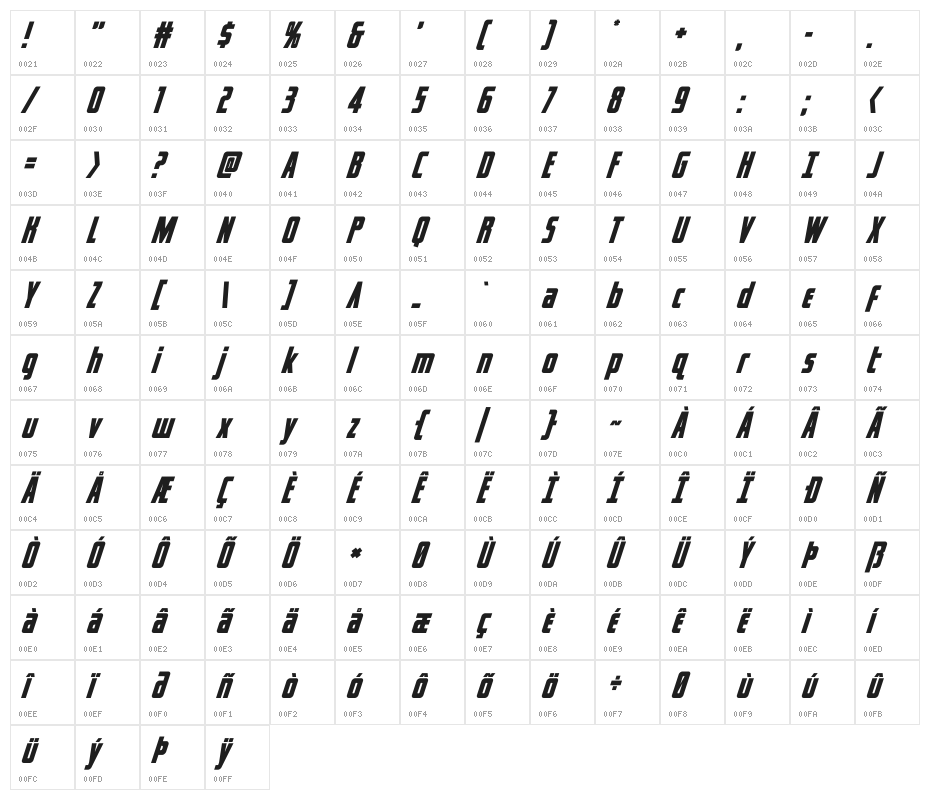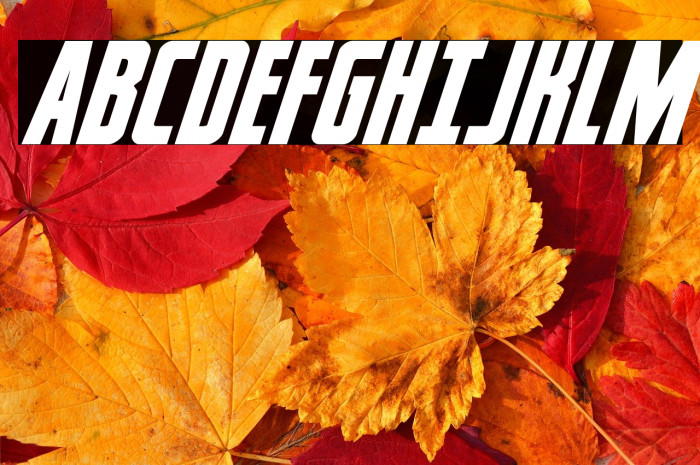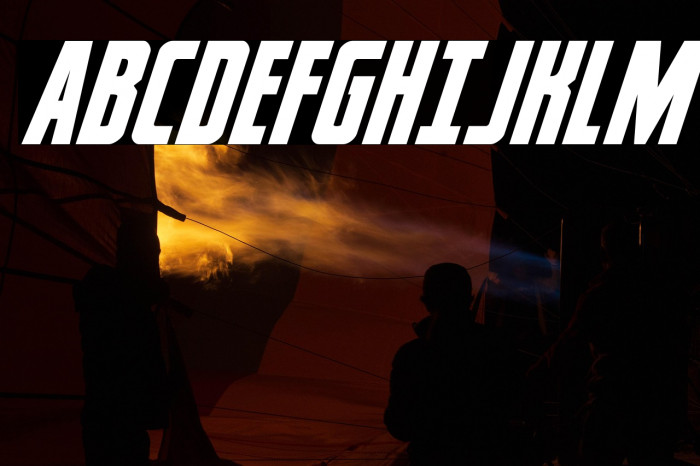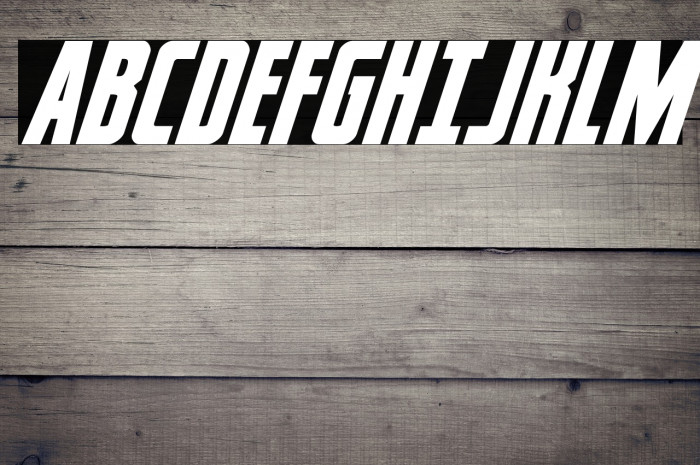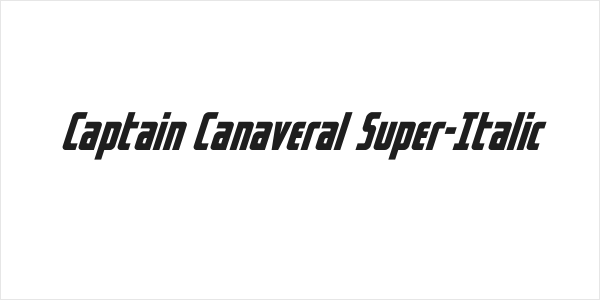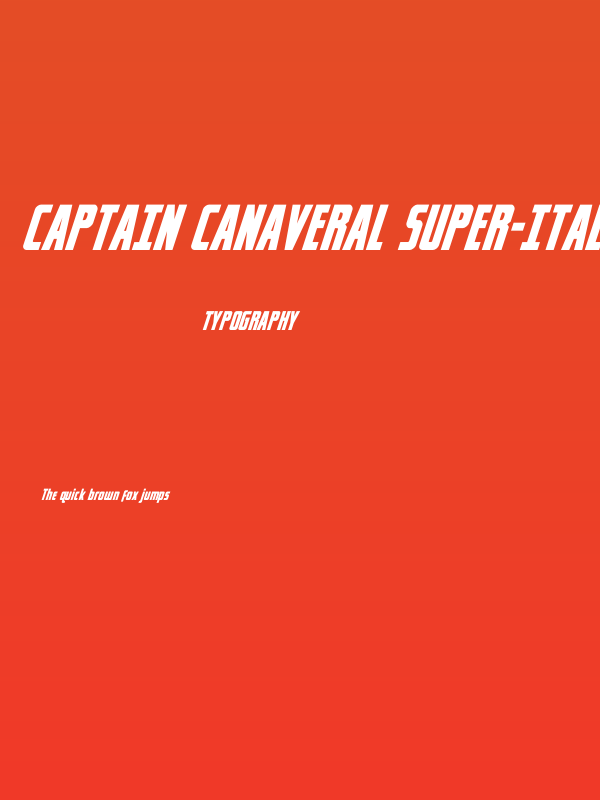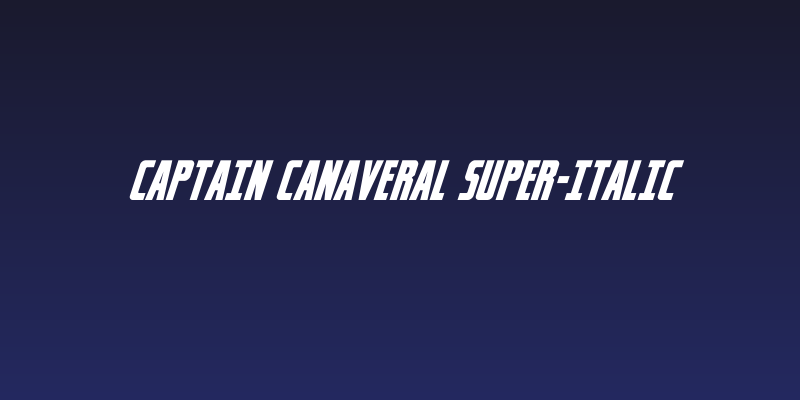
Captain Canaveral Super-Italic Font
Captain Canaveral Super-Italic Description
This font features a bold and dynamic design with a strong italic slant, giving it a sense of motion and energy. The characters are sharply angled, with a futuristic and modern aesthetic. The uppercase and lowercase letters maintain a consistent style, with a slightly condensed width that enhances its sleek appearance. The numerals and special characters are designed to match the overall style, ensuring uniformity across all elements. The font's bold weight and high contrast in stroke thickness make it highly legible and impactful, suitable for attention-grabbing headlines and display purposes.